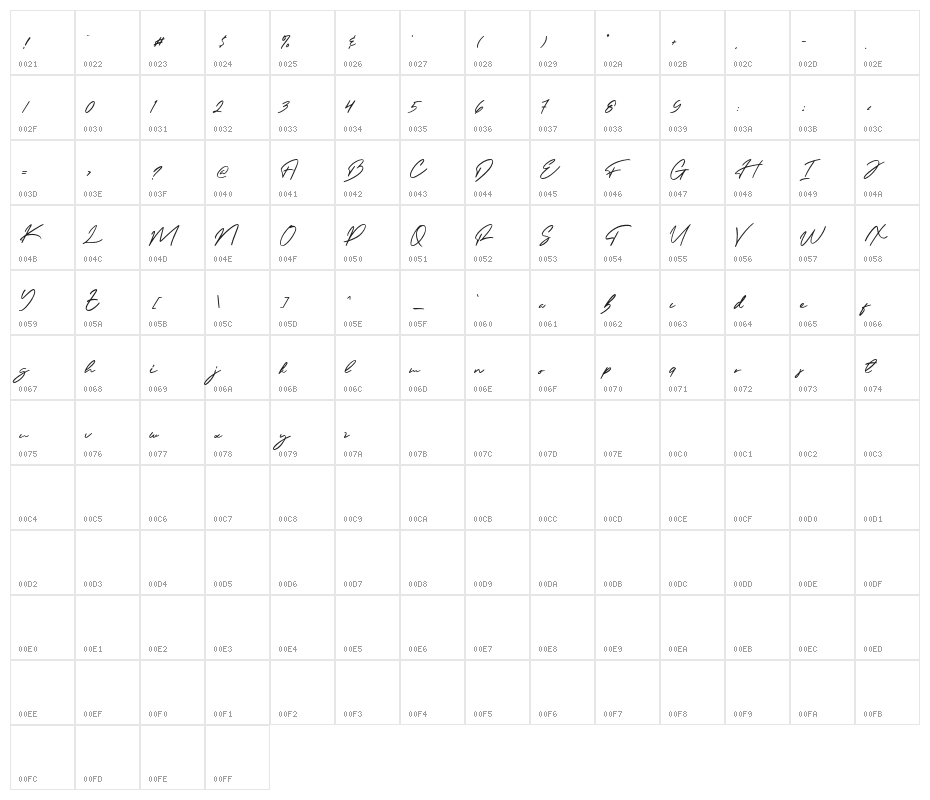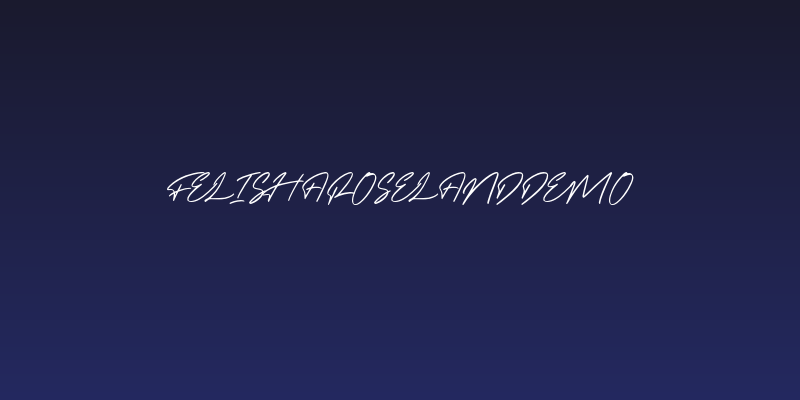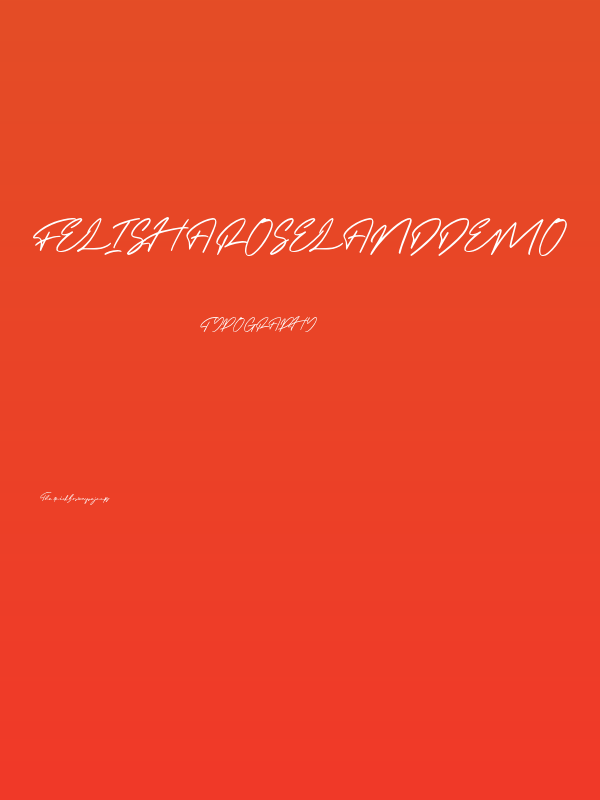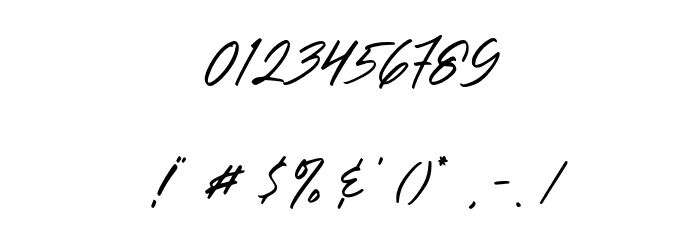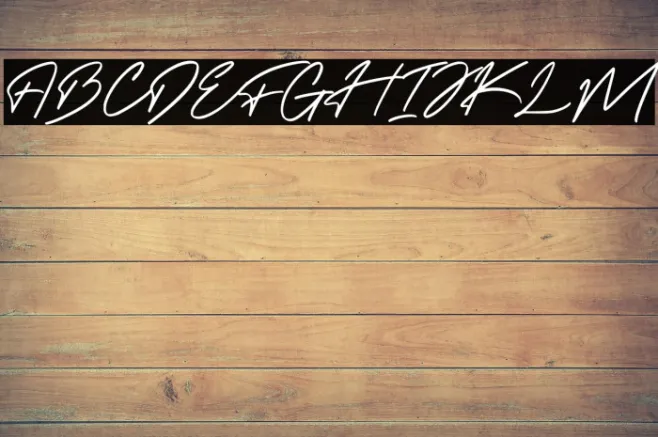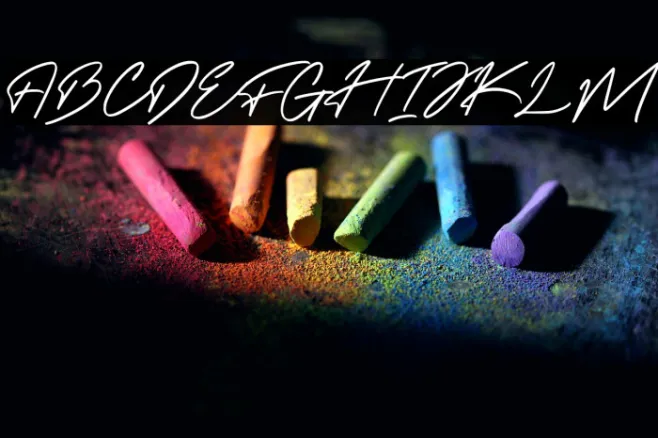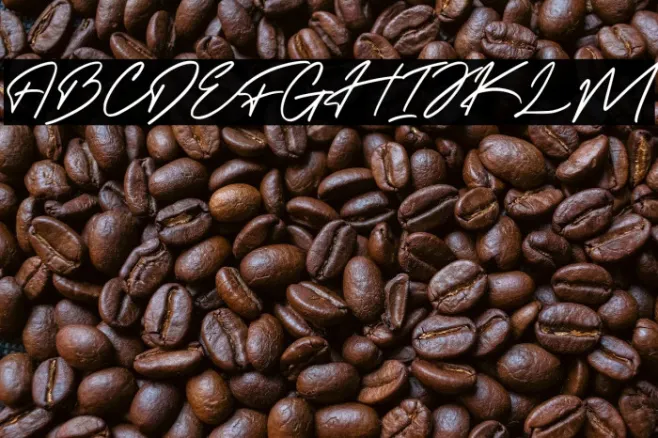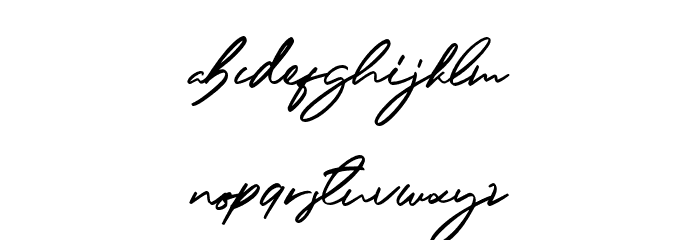
FelishaRoselandDemo Font
FelishaRoselandDemo Description
This font features a flowing, cursive style with elegant, sweeping strokes that give it a sophisticated and artistic appearance. The uppercase letters are bold and dynamic, with a slight slant that adds a sense of motion and fluidity. The lowercase letters maintain a consistent style, with smooth connections between characters, enhancing the script's cohesive look. Numbers and special characters are designed to match the overall aesthetic, providing a harmonious and stylish appearance. This font is perfect for projects that require a touch of elegance and creativity.
| Use Case | Logos, Invitations, Decorative Text |